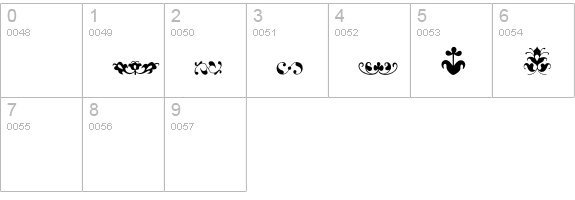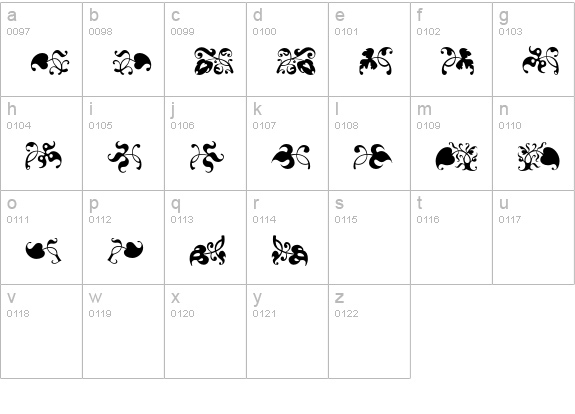
FleuronGarden Font Details
FleuronGarden font is a delightful and elegant typeface that exudes charm and sophistication. Its intricate floral-inspired details and graceful curves make it perfect for adding a touch of whimsy to any design project. Whether you're creating invitations, branding materials, or decorative elements, FleuronGarden will elevate your work with its unique style. The best part is, FleuronGarden font is available for free download at FontsMarket.com. This means you can easily access this stunning font and incorporate it into your projects without any cost. With its timeless appeal and versatile design, FleuronGarden is sure to become a favorite in your font collection. Download it today and let your creativity bloom with FleuronGarden font.